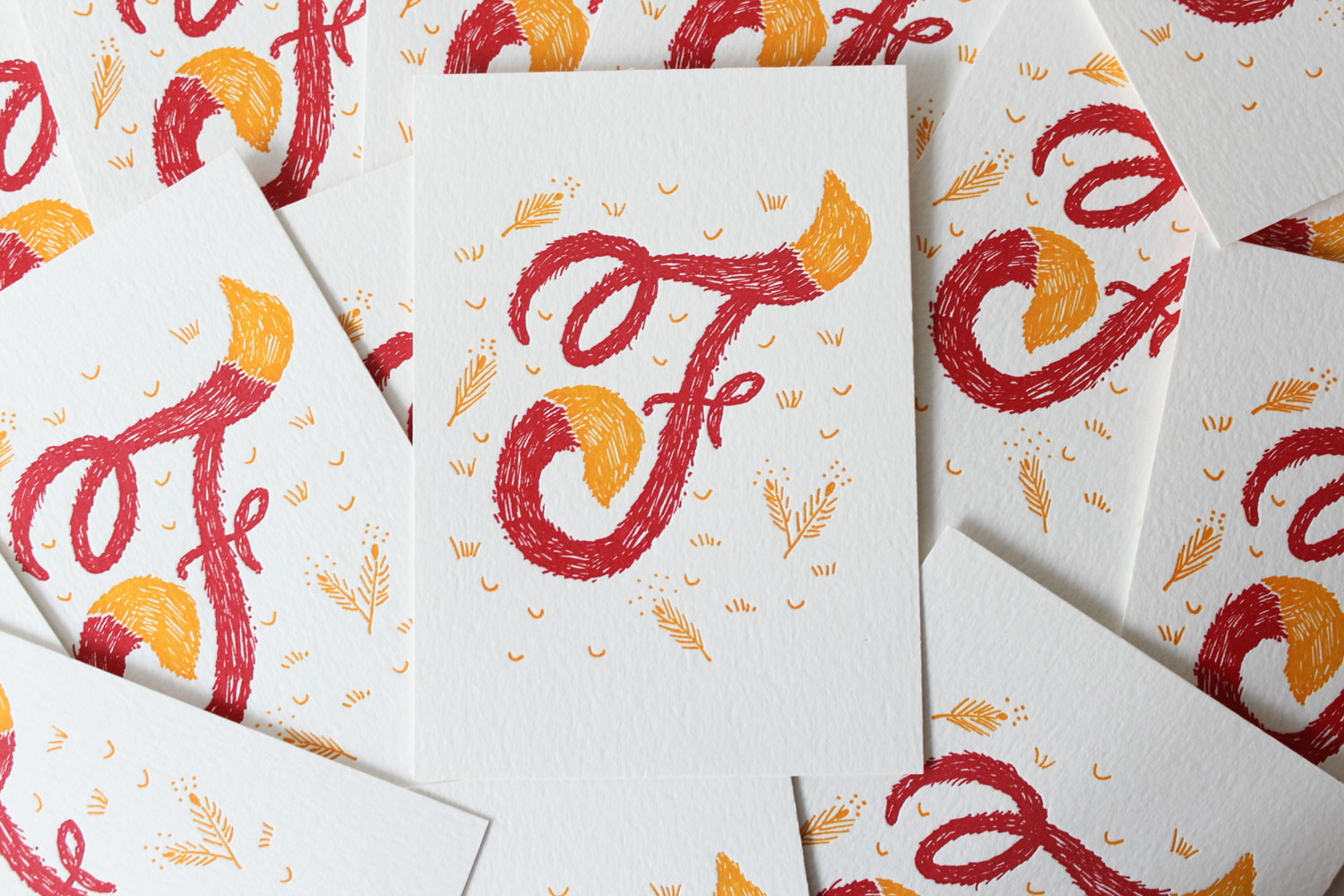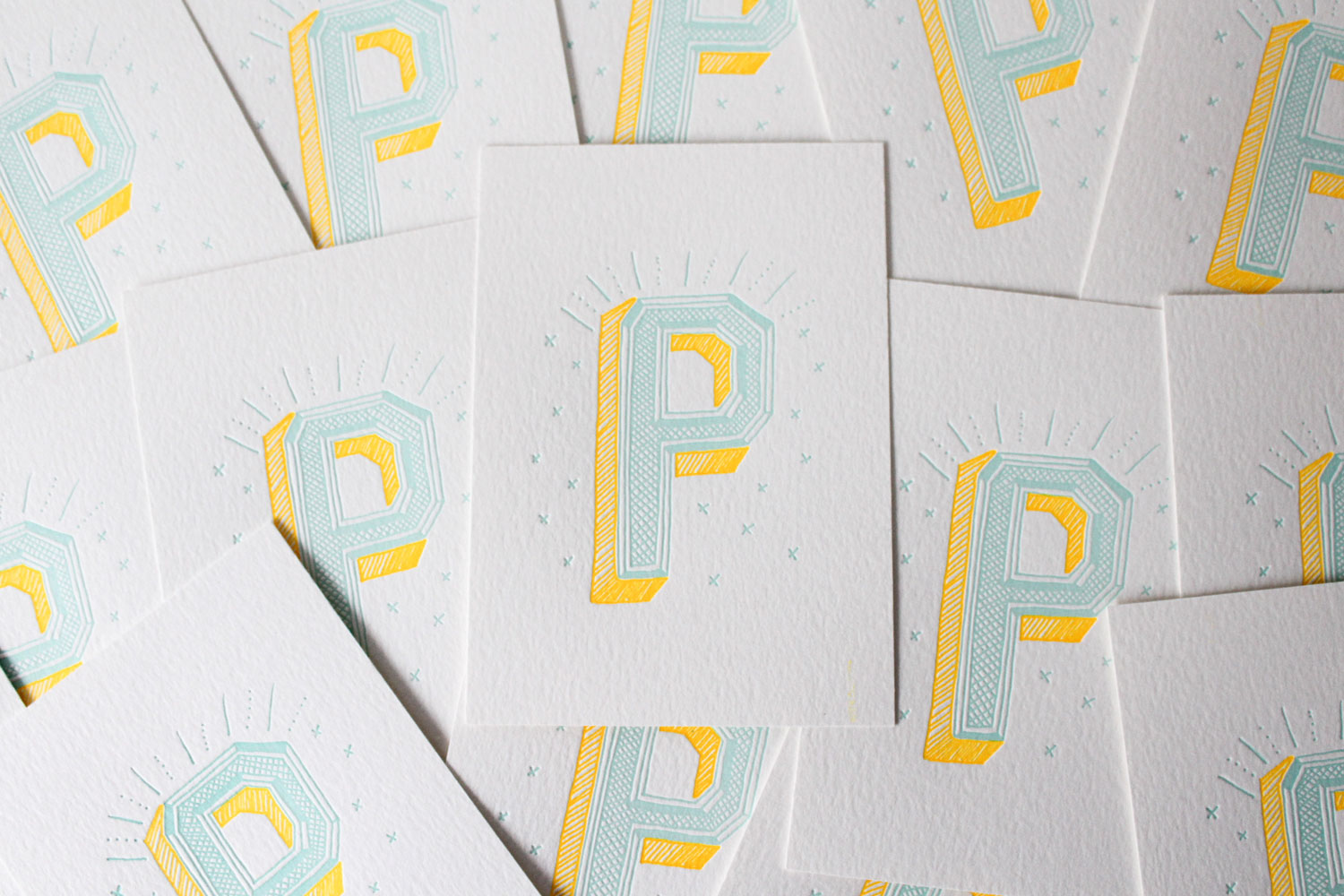
Help these Ladies of Letters in their praiseworthy task
“A big-hearted collaboration” says Carla Hackett of her humane and beautiful crafted project with her studio partner Amy Constable. The hand-lettered alphabet of drop caps called ’Alphabet City’ aims to play an active part in creating a better world – a percentage of the profit goes to support The Australian Literacy and Numeracy Foundation, an organization that aims to raise the national language, literacy and numeracy standards, especially in remote and marginalized communities in Australia. Grab your own copy from the Ladies of Letters project and help Carla and Amy to raise AU$1000 and set up a community Share-a-Book library, here.